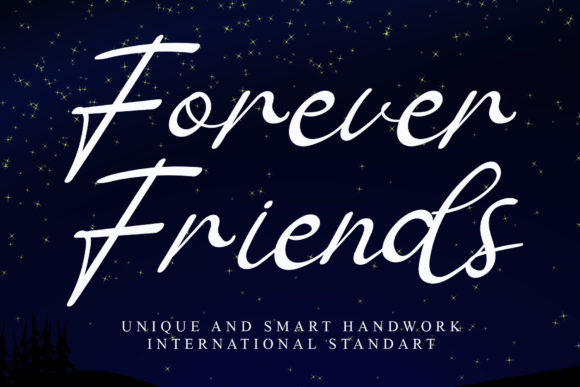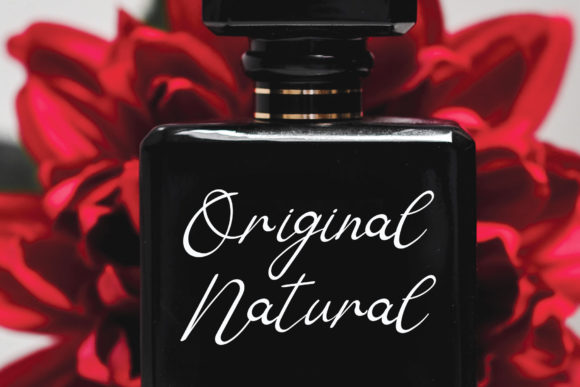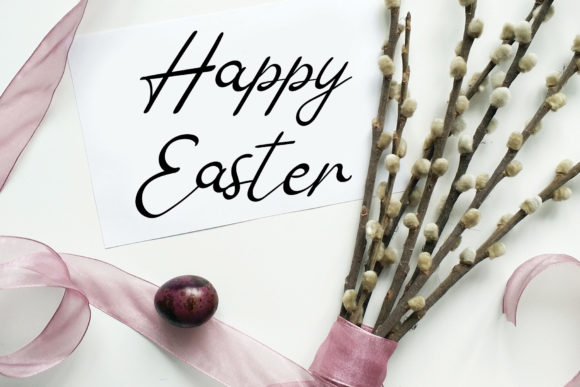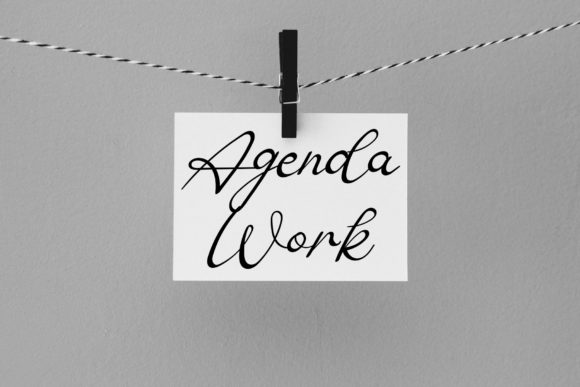
Forever Friends Font
About Forever Friends Font
Forever Friends is a cursive, thin lettered script font. It looks stunning on wedding invitations, thank you cards, quotes, greeting cards, logos, business cards and every other design which needs a handwritten touch.